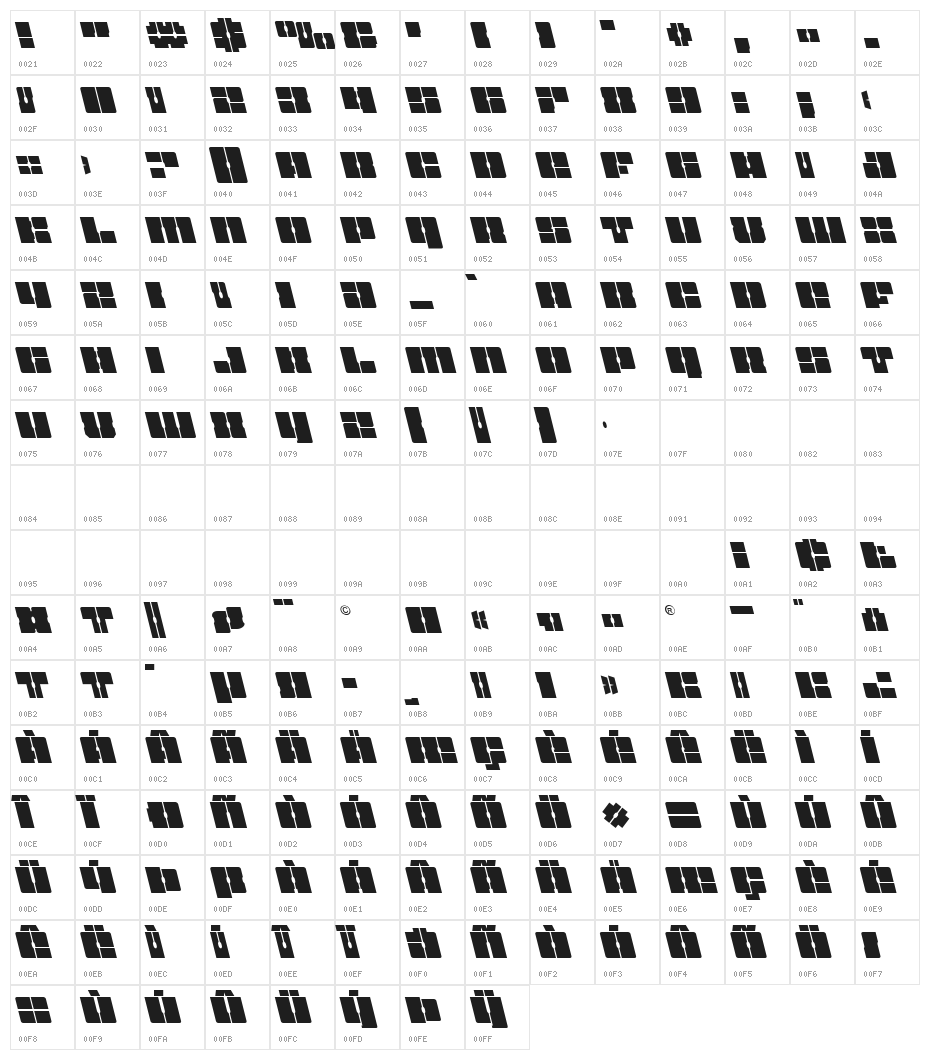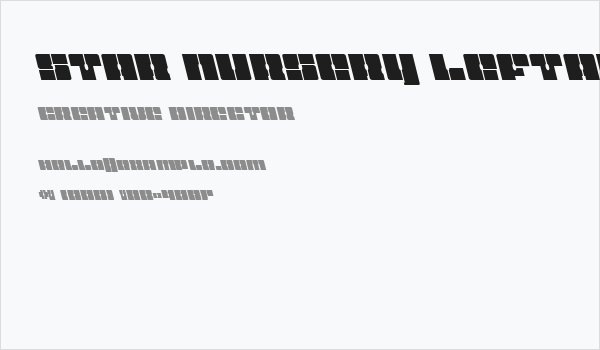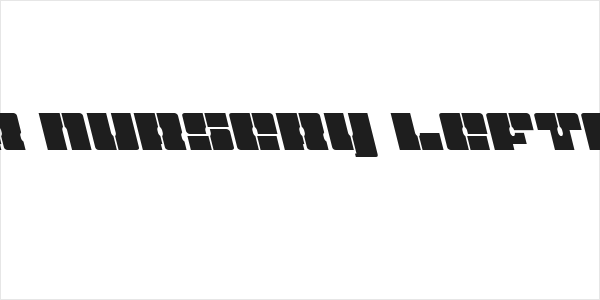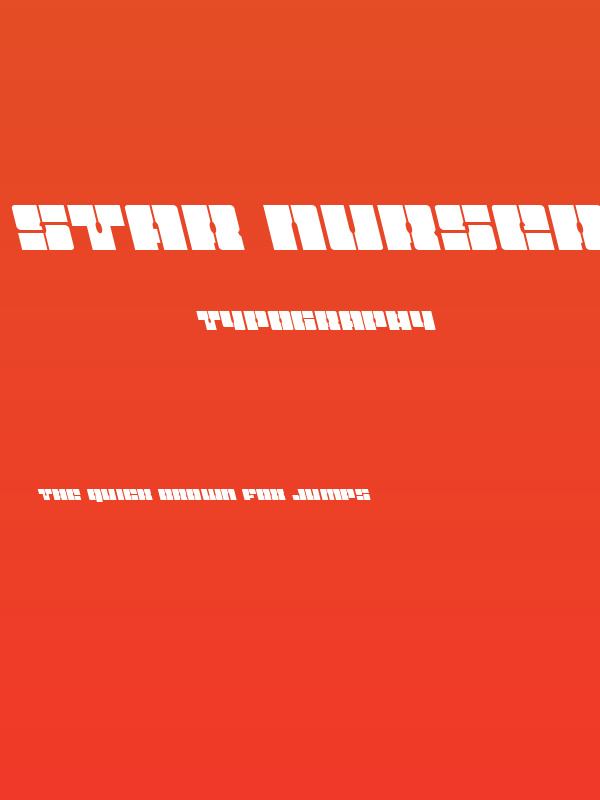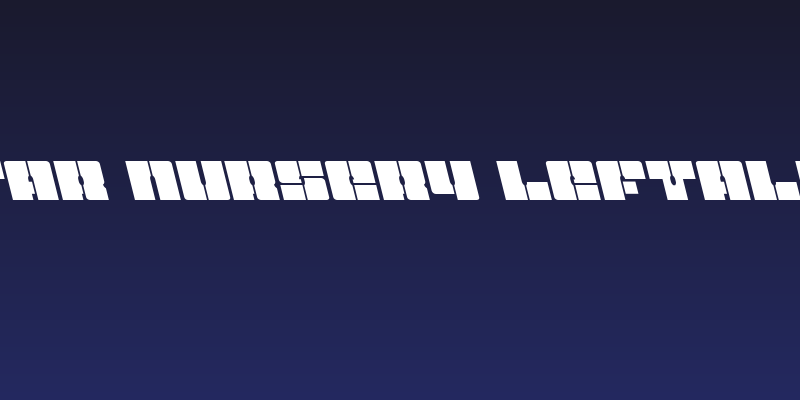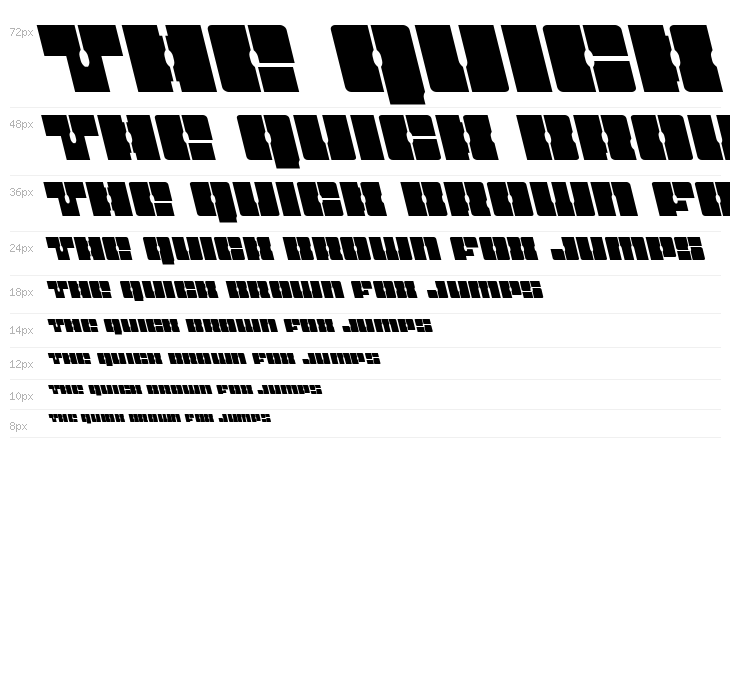
Star Nursery Leftalic Font
Star Nursery Leftalic Description
This font features a bold, geometric design with a futuristic and industrial feel. The characters are constructed with solid, block-like shapes that give a sense of strength and stability. Each letter is uniquely stylized with angular cuts and a consistent thickness throughout, creating a uniform appearance. The font's design is highly distinctive, making it ideal for attention-grabbing headlines or logos. Its boldness and unique style make it stand out, while the geometric shapes provide a modern and edgy look.
| Proposed Projects | Ideal for use in sci-fi themed projects, technology branding, video game titles, and futuristic posters. |